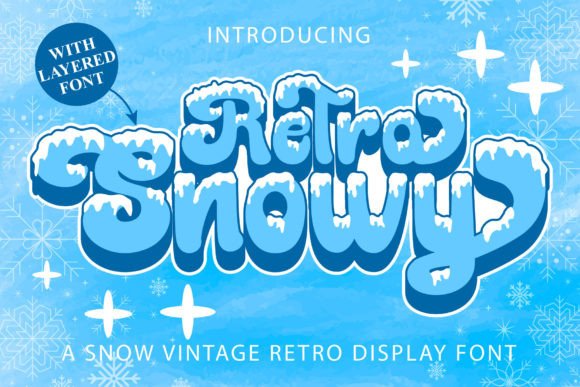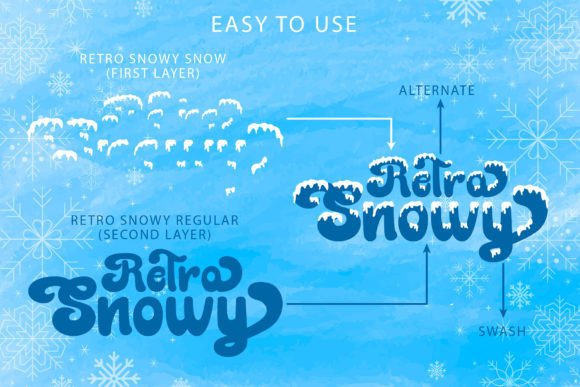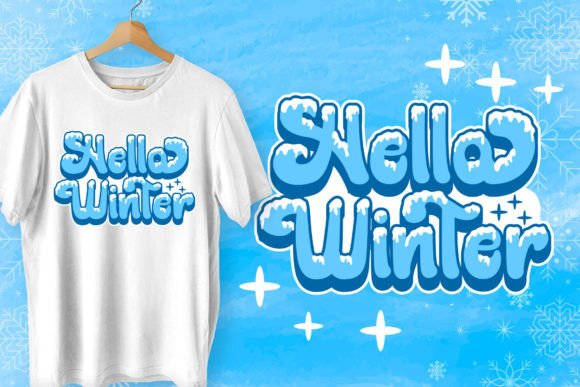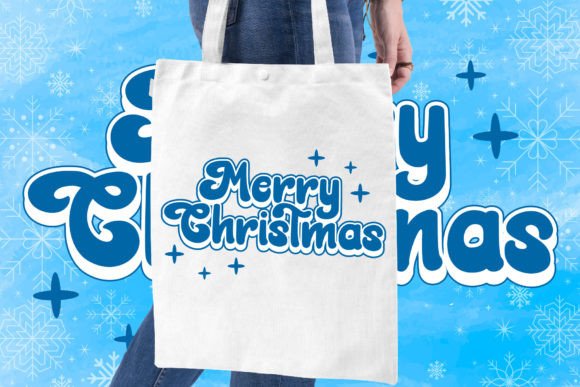
Retro Snowy Font
About the Retro Snowy Font
The Retro Snowy Font offers a perfect balance of form and function for your design needs. Retro Snowy is a groovy bold display font. This font is inspired by snow and winter, which makes it suitable for creating cute holiday t-shirts, stickers, cover books, children’s books, social media posts, and much more! This is a layered font that can make it easier for you to design unique projects.
Retro Snowy’s bold, playful style makes it ideal for headlines, posters, and packaging designs requiring a fun, wintery feel. It’s also well-suited for branding projects targeting younger audiences or those with a whimsical aesthetic. However, its layered design and weight make it less effective for body text or UI elements requiring high readability.
For optimal pairings, consider a clean sans-serif like Open Sans for body text to balance its playful energy, or a more geometric sans-serif such as Futura for a modern contrast. A delicate script font could add a touch of elegance to certain applications, providing a sophisticated counterpoint to its bold character.
The font’s inherent playfulness makes it particularly well-suited for projects related to winter holidays, children’s products, or brands emphasizing fun and festivity. Avoid using it in contexts that demand seriousness or professionalism.
Retro Snowy Font Usage Examples
Retro Snowy Font Example